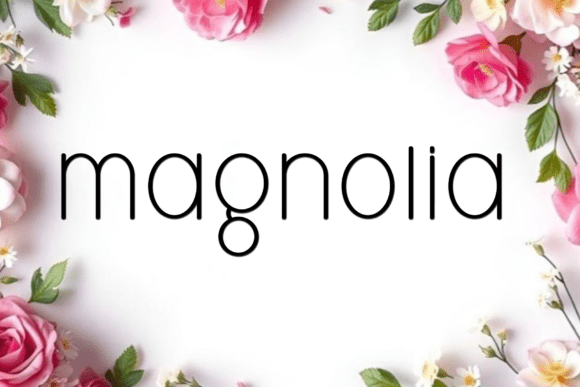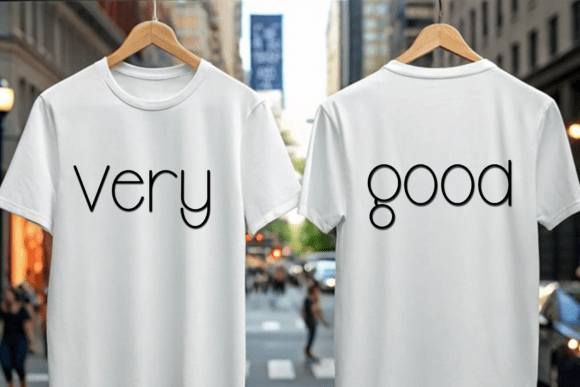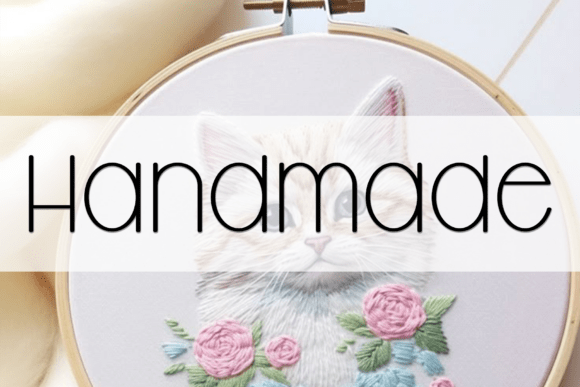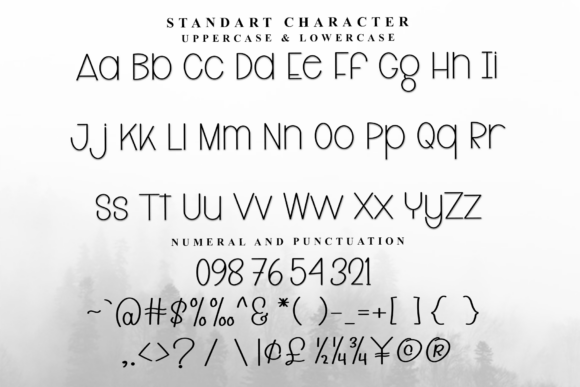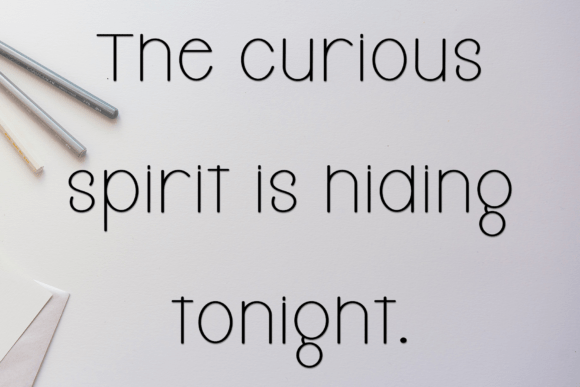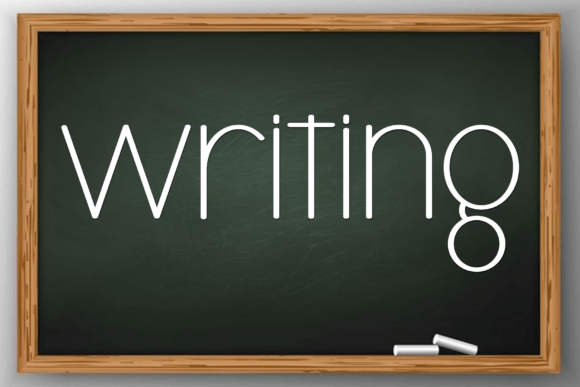
Introducing Good Morning Font: The Perfect Blend of Warmth and Creativity
Are you tired of using the same old fonts for your personal projects, invitations, and social media graphics? Look no further than Good Morning Font, a casual and creative typeface that exudes warmth and friendliness. With its round, playful strokes, this font creates a relaxed and approachable feel that’s perfect for designers and crafters looking to add a personal touch to their work.
The Charm of Good Morning Font
Good Morning Font boasts a charming, hand-drawn aesthetic that adds a fun and unique touch to any design. Its playful strokes and rounded edges create a sense of warmth and approachability, making it ideal for projects that require a personal and friendly feel. Whether you’re designing invitations, social media graphics, or personal projects, Good Morning Font is sure to make your work stand out.
Key Features of Good Morning Font
- Casual and Creative: Good Morning Font is a casual and creative typeface that’s perfect for designers and crafters looking to add a personal touch to their work.
- Warm and Friendly: The font’s round, playful strokes create a relaxed and approachable feel that’s perfect for personal projects, invitations, and social media graphics.
- Hand-Drawn Aesthetic: Good Morning Font boasts a charming, hand-drawn aesthetic that adds a fun and unique touch to any design.
What Makes Good Morning Font So Versatile?
Good Morning Font is more than just a pretty face – it’s also incredibly versatile. Its compatibility with various application engines makes it easy to use in a range of design projects, from digital graphics to print materials. Whether you’re a designer, crafter, or DIY enthusiast, Good Morning Font is the perfect choice for any project that requires a personal touch.
How to Use Good Morning Font in Your Designs
Using Good Morning Font in your designs is easy. Here are a few tips to get you started:
- Pair it with Other Fonts: Good Morning Font pairs well with other fonts, so feel free to experiment with different combinations to find the perfect look for your project.
- Use it for Headings and Titles: Good Morning Font is perfect for headings and titles, where its playful strokes and rounded edges can really shine.
- Add it to Your Social Media Graphics: Good Morning Font is a great choice for social media graphics, where its friendly and approachable feel can help you connect with your audience.
Why Designers and Crafters Love Good Morning Font
Designers and crafters love Good Morning Font for its unique blend of warmth and creativity. Here are a few reasons why:
- Unique Aesthetic: Good Morning Font boasts a charming, hand-drawn aesthetic that’s unlike anything else on the market.
- Ease of Use: Good Morning Font is easy to use, even for designers and crafters who are new to working with fonts.
- Versatility: Good Morning Font is incredibly versatile, making it perfect for a range of design projects.
In conclusion, Good Morning Font is a casual and creative typeface that’s perfect for designers and crafters looking to add a personal touch to their work. With its charming, hand-drawn aesthetic and versatile compatibility, Good Morning Font is sure to become a staple in any designer’s toolkit. So why wait? Download Good Morning Font today and start creating beautiful, unique designs that showcase your personality and style.